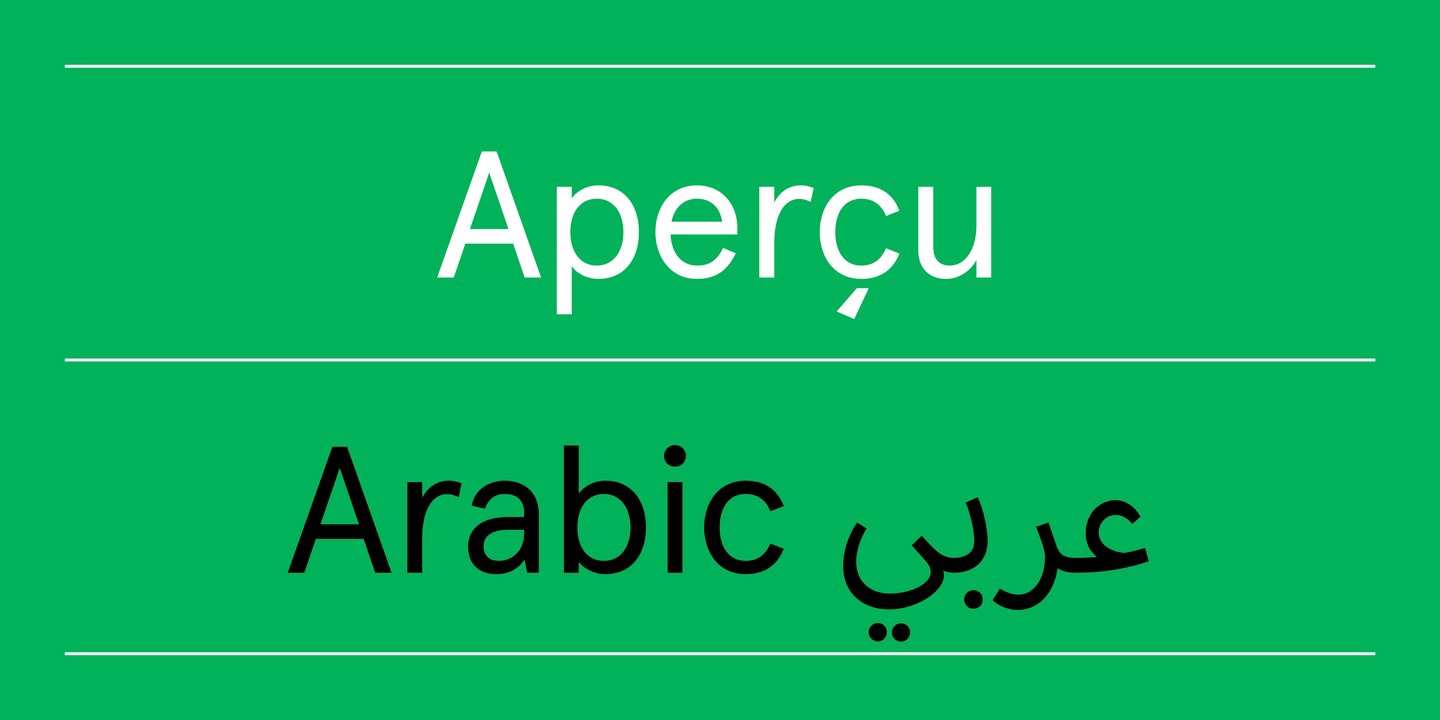
Apercu Arabic Font
This multilingual typeface is perfect for Middle Eastern brands, Arabic publications, Islamic cultural centers, international businesses, halal products, Arabic language materials, multicultural campaigns, regional organizations, and cross-cultural design projects.
What makes this font exciting is its Arabic script authenticity combined with international sophistication, offering designers a culturally-sensitive typeface that captures Arabic linguistic elegance while delivering exceptional multilingual functionality and contemporary global appeal.
The Apercu Arabic font family includes light, regular, medium, bold, black, and display variations, providing complete multilingual design solutions for creating authentic Arabic-international visual identities.
Whether you're developing Middle Eastern cultural brands or crafting international communication systems, Apercu Arabic Font Free Download brings exceptional cultural atmosphere and linguistic authenticity to every application. This sophisticated typeface combines traditional Arabic script principles with contemporary international design standards, creating letterforms that honor cultural heritage while ensuring global accessibility. The font's multicultural construction and authenticity-ready details make it perfect for brands seeking immediate Arabic recognition.
Apercu Arabic Font features carefully crafted Arabic styling with authentic cultural character that conveys genuine linguistic expertise. Each character has been designed to maintain traditional Arabic script beauty while ensuring optimal readability across different media platforms. The font's multicultural qualities make it particularly effective for cultural institutions and international applications.
Professional designers choose Apercu Arabic Font for projects requiring authentic Arabic credibility and multicultural atmosphere. Its linguistic heritage makes it exceptionally well-suited for Middle Eastern businesses, cultural centers, and international organizations serving Arabic-speaking communities. The font's versatile multilingual variations allow designers to control the cultural intensity, from subtle international elegance to full Arabic cultural celebration.
The complete Apercu Arabic Font package offers extensive Arabic ornaments and cultural decorative elements that enhance the authentic aesthetic. Advanced multilingual features allow designers to create complex cultural effects with multiple Arabic-inspired options. This comprehensive multicultural toolkit ensures designers have everything needed to create authentic Arabic communications that celebrate the rich linguistic heritage of Arabic culture and international connectivity.